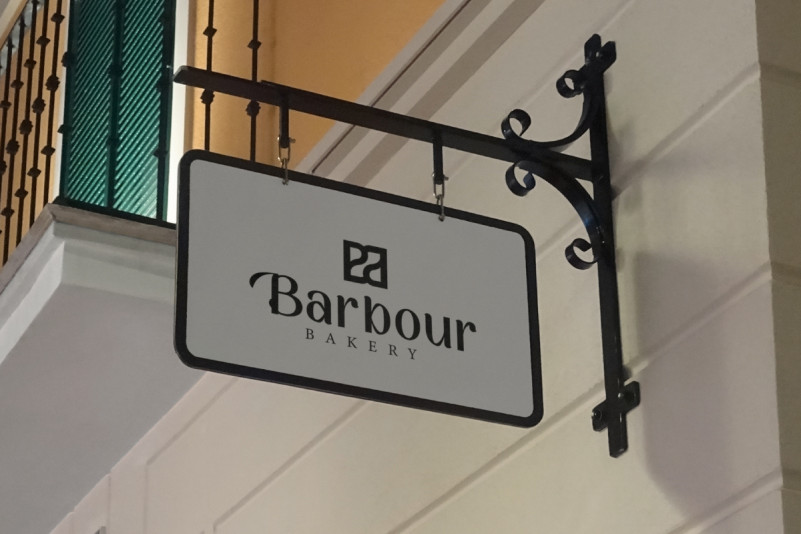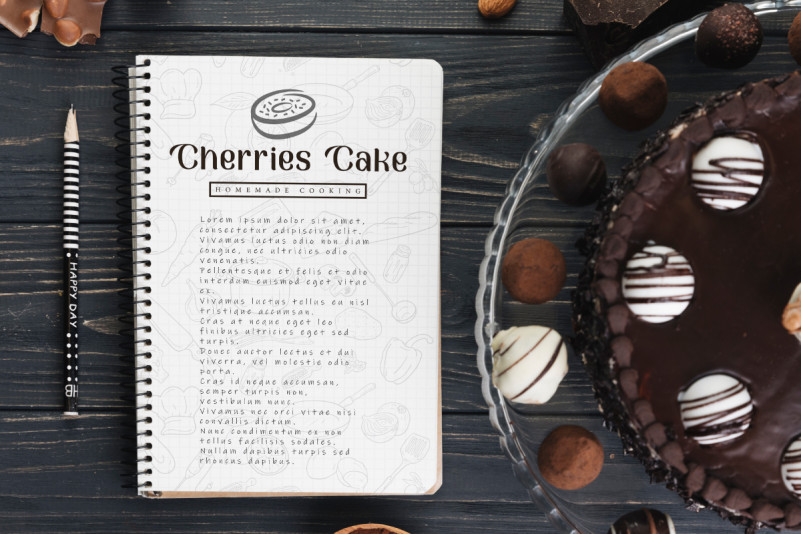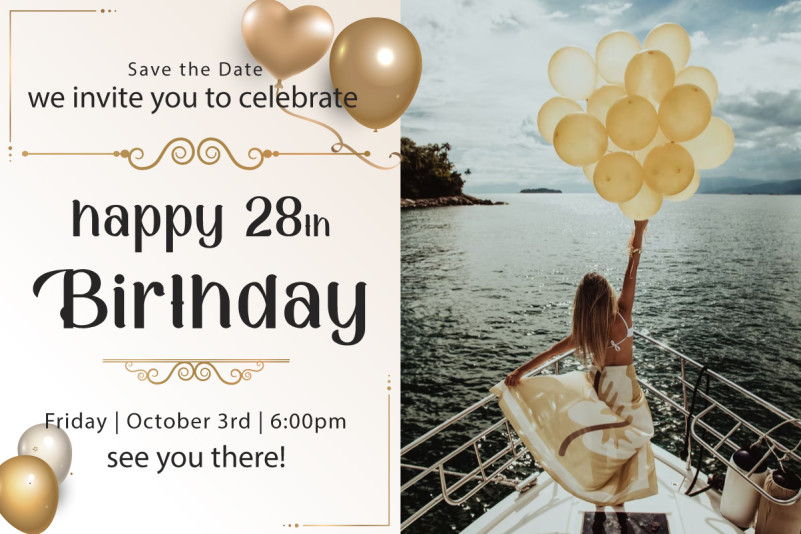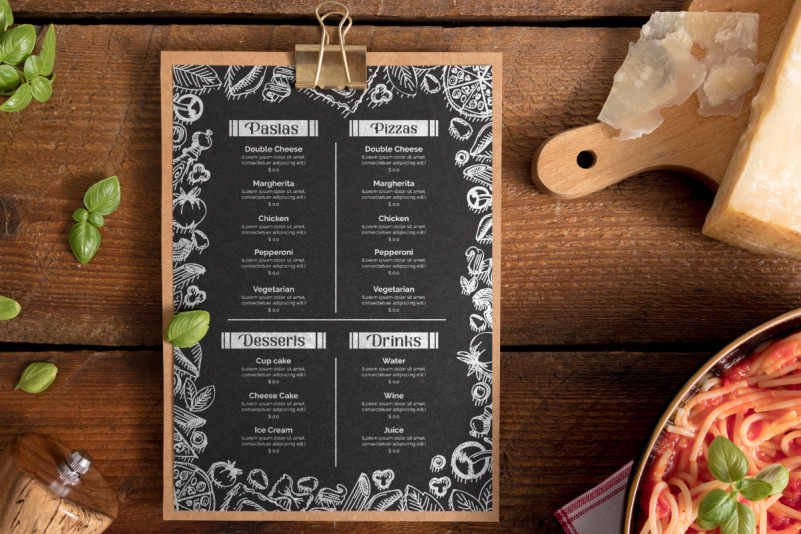
Corporate Party Font
Corporate Party Display Font is a modern display part of the basic font, created by EdricStudio. This font has a clean look with perfect thickness, and one thing that makes it stand out, the tail at the beginning of each Uppercase makes it awesome. It will be perfect for all industries, such as bakery, birthday party, cooking lessons, event organizer, handicraft, restaurant, and more.
Corporate Party Font comes with a full set of Uppercase and Lowercase Basic Characters, Number, large range of Punctuation and Symbol. It has a stunning characters set, perfectly managed with well spaced and kerning. Corporate Party Font will be great for any projects (with extended license) including : brand logo, header, invitation, label, menu, quote, signage, and will have the potential to take your every creative idea to the highest level!